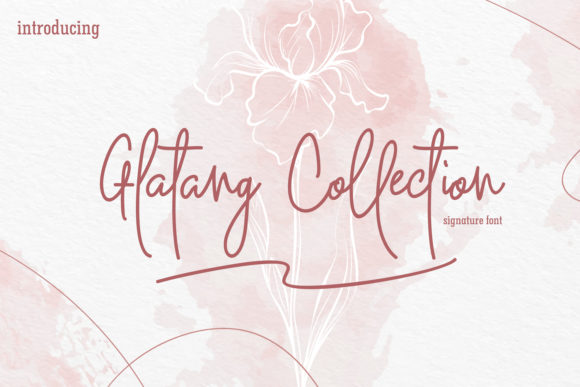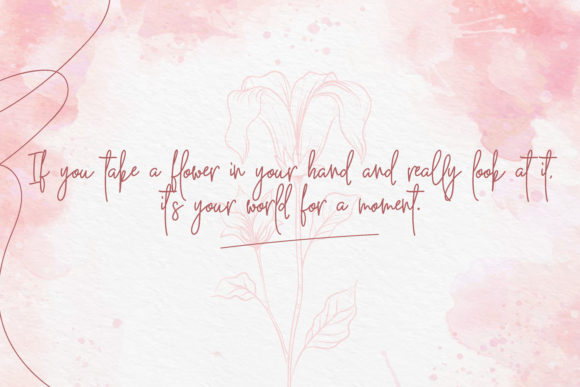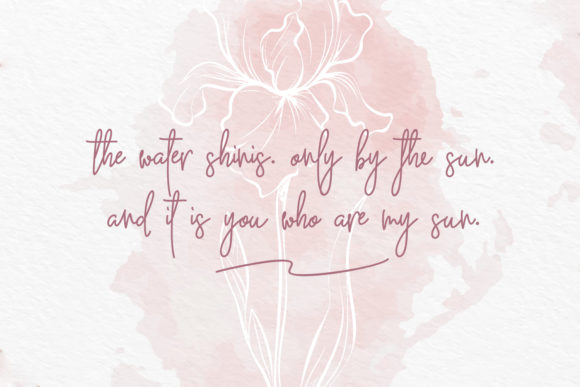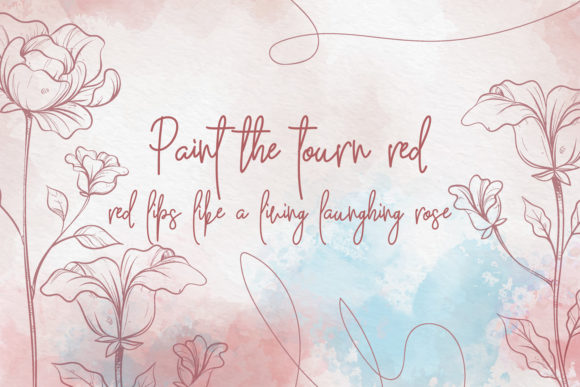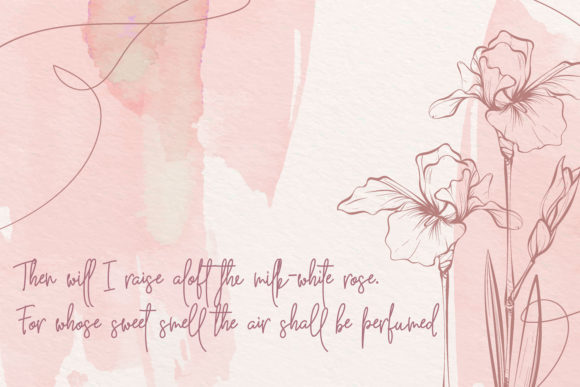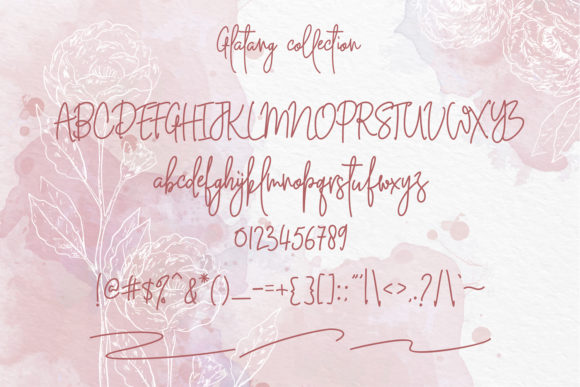
Glatang Collection Font
About Glatang Collection Font
Glatang Collection is inspired by classic typography and brings its own unique style to any design project.
It will elevate a wide range of design projects to the highest level, be it branding, headings, wedding designs, invitations, signatures, logos, labels, and much more!